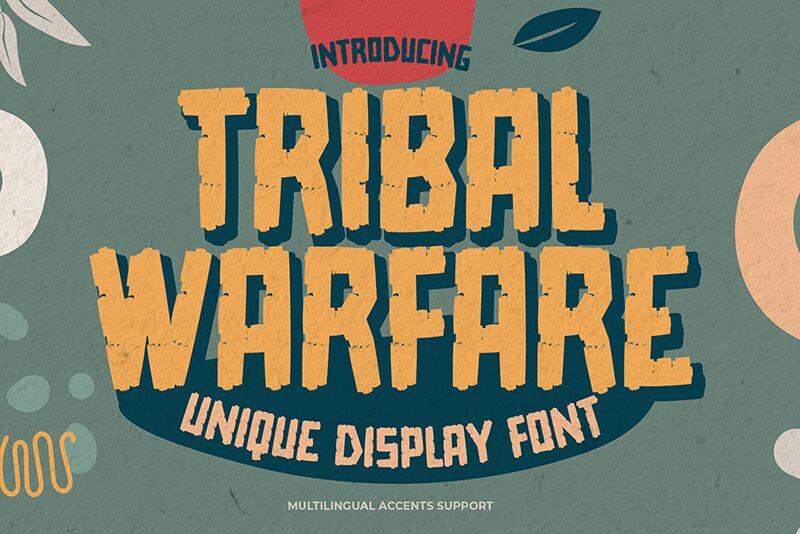
Tribal Warfare
Tribal Warfare font, designed by Gassstype, commands attention with its striking presence. Its bold, condensed style exudes a powerful, tribal essence, making it ideal for projects that demand an impactful aesthetic. The robust forms and geometric intricacies evoke a sense of strength and unity.
Visually captivating, this font pairs well with dynamic visuals in branding and advertising, especially in action-packed graphics or adventurous themes. Its unique composition enhances titles and headings where authority is key—perfect for sports teams, gaming brands, or events that celebrate community spirit.
Incorporate Tribal Warfare into your designs to convey a strong message while capturing the spirit of resilience and camaraderie inherent in its tribal inspirations.